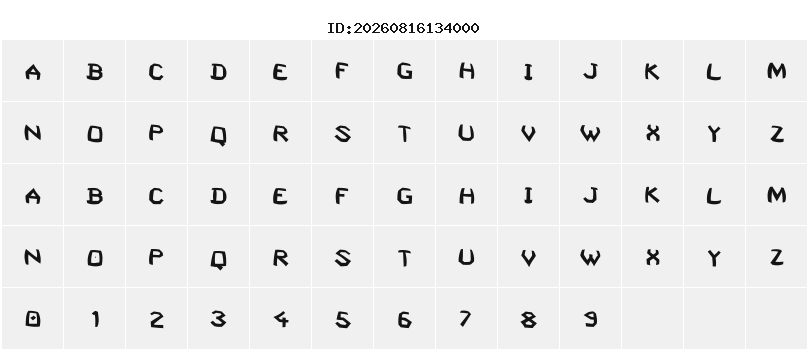
SquashedRandom Preview
• Font Name: SquashedRandom
• Full Font Name: SquashedRandom
• Version: 1.0 2002-07-07
• Character Count: 225
About SquashedRandom.ttf
SquashedRandom.ttf is a modern, elegant sans-serif font designed for ultimate readability and visual harmony. Perfect for branding, headlines, web design, and print materials.